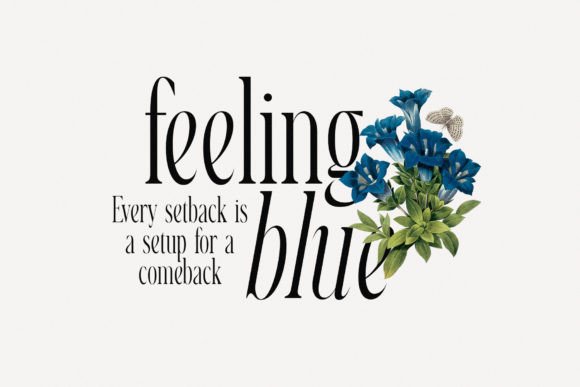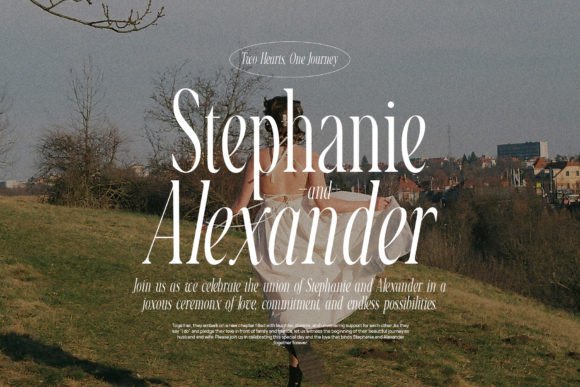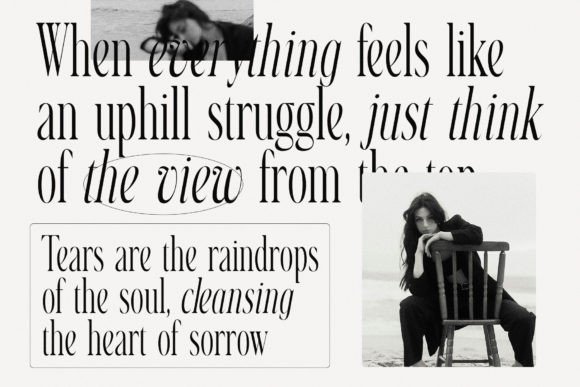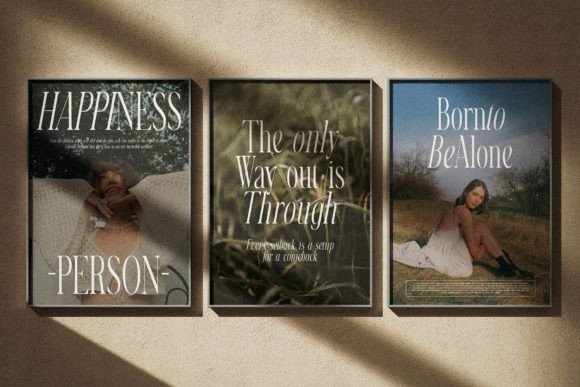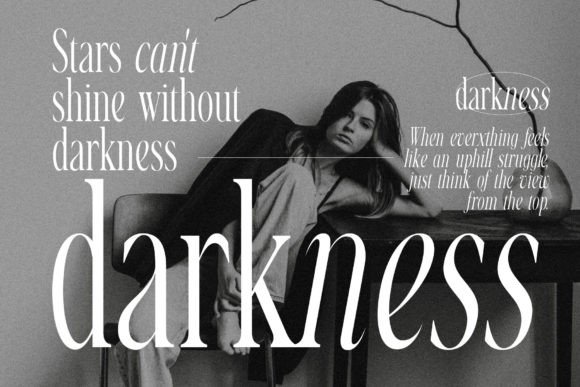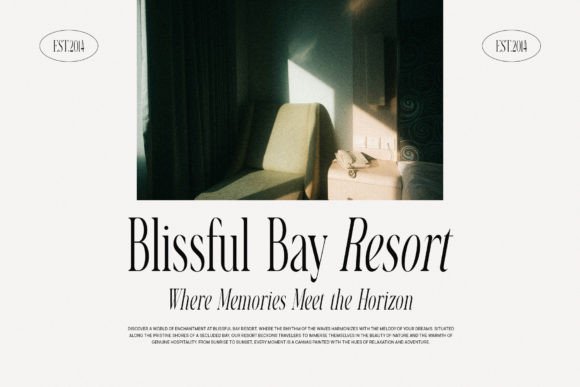
Discover the Elegance of Glowins Font: A Modern Serif Font Family
In the world of typography, fonts play a crucial role in conveying messages, expressing emotions, and creating visual identities. For designers and crafters, finding the perfect font that balances readability, aesthetics, and versatility can be a daunting task. However, if you’re looking for a font that embodies modern style, elegance, and sophistication, look no further than Glowins Font. In this article, we’ll explore the features, benefits, and uses of Glowins Font, and why it’s becoming a popular choice among designers and crafters.
What is Glowins Font?
Glowins is a serif font family that boasts a modern style, making it an excellent choice for projects that require a touch of sophistication. Serif fonts are known for their high readability level, and Glowins is no exception. Its unique design ensures that the text remains clear and legible, even at small font sizes. This makes it perfect for body text, articles, and other written content where readability is paramount.
Key Features of Glowins Font
- Modern Style: Glowins Font features a modern serif design that sets it apart from traditional serif fonts. Its clean lines, subtle curves, and balanced proportions create a visually appealing aesthetic.
- High Readability: The font’s serif design and carefully crafted letterforms ensure that text remains readable, even at small font sizes.
- Elegant and Beautiful Strokes: The italic style of Glowins Font introduces an elegant and beautiful stroke that adds a touch of sophistication to any design.
- Artistic and Versatile: The regular font, like the italic feature, is designed to be artistic, with varying thicknesses on every curve of the lines, making it perfect for creative projects.
Benefits of Using Glowins Font
So, why should designers and crafters choose Glowins Font for their projects? Here are some benefits:
- Improved Readability: Glowins Font ensures that your text is clear and easy to read, making it perfect for body text, articles, and other written content.
- Elegant Aesthetic: The font’s modern serif design and elegant strokes add a touch of sophistication to any design, making it ideal for projects that require a classy look.
- Versatility: Glowins Font is versatile and can be used for a wide range of projects, from digital content to print materials.
- Time-Saving: With Glowins Font, designers and crafters can save time searching for the perfect font, as it offers a unique combination of readability, aesthetics, and versatility.
Uses of Glowins Font
Glowins Font is suitable for a variety of projects, including:
- Digital Content: Use Glowins Font for blog posts, articles, and website content to improve readability and add a touch of elegance.
- Print Materials: The font is perfect for print materials, such as brochures, flyers, and business cards, where a classy look is desired.
- Branding and Identity: Glowins Font can be used to create a unique visual identity for brands, adding a touch of sophistication to logos, packaging, and marketing materials.
- Creative Projects: Designers and crafters can use Glowins Font for creative projects, such as posters, invitations, and social media graphics, where a modern and elegant look is required.
In conclusion, Glowins Font is a modern serif font family that offers a unique combination of readability, aesthetics, and versatility. Its elegant design, beautiful strokes, and artistic features make it an excellent choice for designers and crafters looking for a font that can elevate their projects. Whether you’re working on digital content, print materials, or creative projects, Glowins Font is sure to impress. So, why not give it a try and experience the elegance of Glowins Font for yourself?